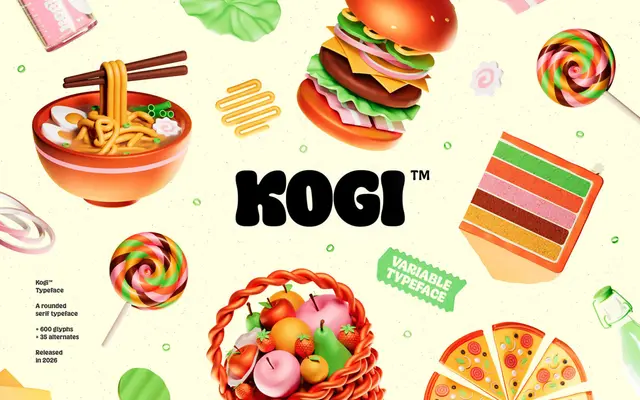
Kogi
Kogi specimen from Almarena
A rounded serif with generous curves and softened terminals, designed for warm, expressive work in food, packaging and branding contexts.
Built around very generous curves and rounded serifs, Kogi aims to balance warmth with structural clarity across nine weights from Thin to Black, each with a matching italic. The family ships as both variable and static fonts with two axes for weight and italic, and includes over 600 glyphs covering a broad range of Latin-script languages. Six stylistic sets and a selection of discretionary ligatures extend its expressive range for display and identity work.
Kogi is a serif typeface distinguished by rounded terminals and softened serifs throughout, placing it firmly in the rounded serif subcategory rather than a classical or transitional serif tradition.